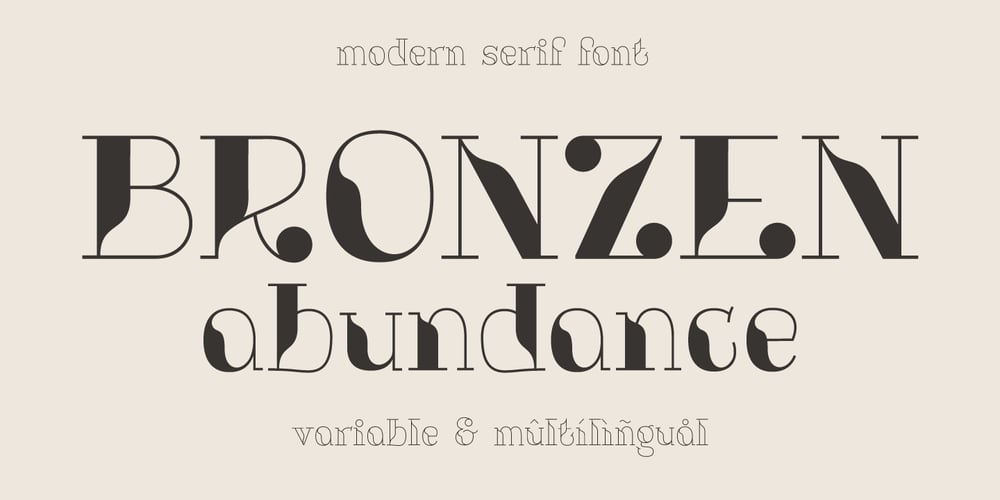
Bronzen Abundance Font Family was designed by Roman Korolev and published by Kaer. Bronzen Abundance contains 4 styles and family package options. Vintage font with premium decoration. Classic line serif font. Bronzen Abundance is perfect to use in any alcohol labels, glamour posters, luxury identity, and more.Comes in four font styles: pattern, filled, line and colored.